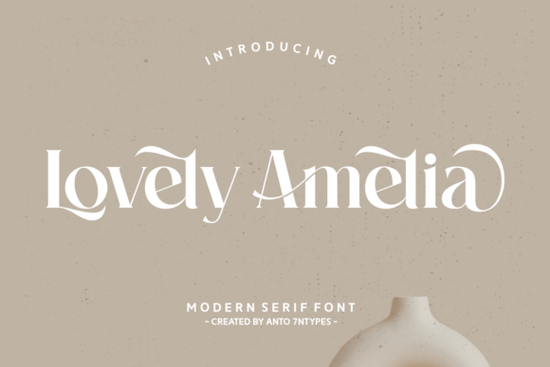
Finding a font that feels romantic yet modern isn't always easy. Lovely Amelia font manages to blend warmth, playfulness, and elegance into one cohesive typeface. It's built with sleek, modern strokes but carries a whimsical personality that works beautifully on wedding invitations, birthday cards, branding projects, and more. For designers, crafters, and print-on-demand sellers looking for a versatile serif font with character, this one deserves a closer look.
What Makes Lovely Amelia Font Different From Other Romantic Typefaces?
Plenty of fonts claim to be "romantic" or "elegant," but many end up looking stiff or overly decorative. Lovely Amelia avoids that trap by balancing its cheerful, upbeat energy with clean letterforms. The strokes are bold enough to read clearly at small sizes, yet detailed enough to feel special at larger scales.
A standout feature is the heart swash accent a subtle design detail that adds endearing personality without overwhelming your layout. It's the kind of touch that makes people pause and look twice.
The font family includes:
- Regular – clean and versatile for everyday use
- Italic – adds movement and softness
- Ligatures – smooth letter connections for a polished look
- Alternate characters – extra stylistic options for customizing your designs
It also supports multiple languages, so you're not limited to English-only projects.
What Can I Use This Font For?
This is where Lovely Amelia really shines. Its style adapts well to a surprisingly wide range of projects:
- Wedding invitations and save-the-dates – the romantic feel is a natural fit
- Birthday cards and greeting cards – cheerful without being childish
- Book covers and magazine layouts – adds visual interest to titles and headers
- Branding and logos – works well for boutique shops, beauty brands, and lifestyle businesses
- Print-on-demand products – think tote bags, T-shirts, mugs, and posters
- Social media graphics – quotes, announcements, and promotional posts
- Packaging design – perfume boxes, candle labels, cosmetics packaging
Whether you're designing for cottony T-shirts or glossy product packaging, the font maintains its charm and readability across different materials.
Does It Work Well for Print-on-Demand Sellers?
Absolutely. If you sell on platforms like Redbubble, Merch by Amazon, or Etsy, having a distinctive yet readable font in your toolkit matters. Lovely Amelia's blend of trendiness and elegance makes it useful for:
- Valentine's Day and anniversary designs
- Mother's Day gifts and quotes
- Bridal shower and bachelorette party merchandise
- Inspirational quote posters and wall art
- Nursery and kids' room decor with a softer aesthetic
The alternates and ligatures give you enough variety to create multiple products from one font family without everything looking the same. That's a real time-saver when you're building out a shop with dozens of listings.
Tips for Getting the Most Out of This Font
A few practical suggestions based on how this typeface performs in real projects:
- Pair it with a simple sans-serif for body text. Lovely Amelia works best as a display or heading font, so let a clean sans-serif handle the smaller copy.
- Use the ligatures and alternates they're included for a reason. Swapping in alternate characters can make the same font feel completely different across two designs.
- Test at multiple sizes before finalizing. The heart swash details look stunning at larger sizes but may need adjustment in tighter layouts.